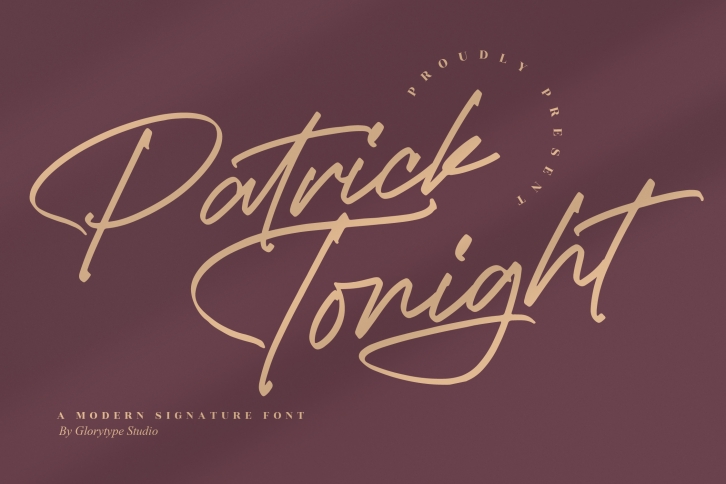
Patrick Tonight – Modern Signature Font , from Glorytype Studio, suitable for any projects such as: logos, branding projects, homeware designs, product packaging, mugs, quotes, posters, shopping bags, t-shirts, book covers, name card, invitation cards, greeting cards, label, photography, watermark, special events, and all your other lovely projects that need a beautiful script taste.